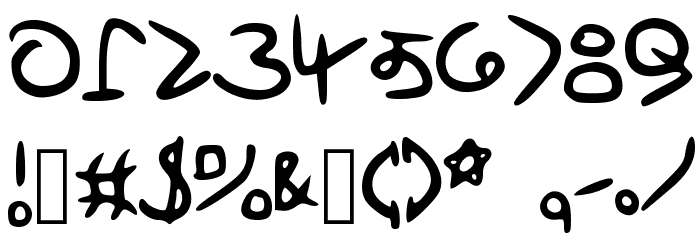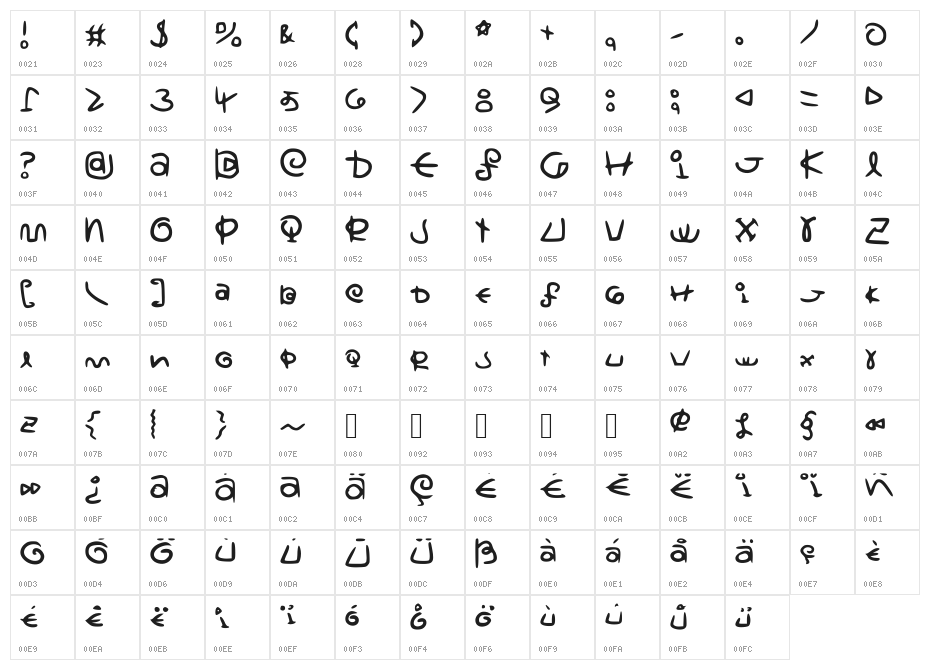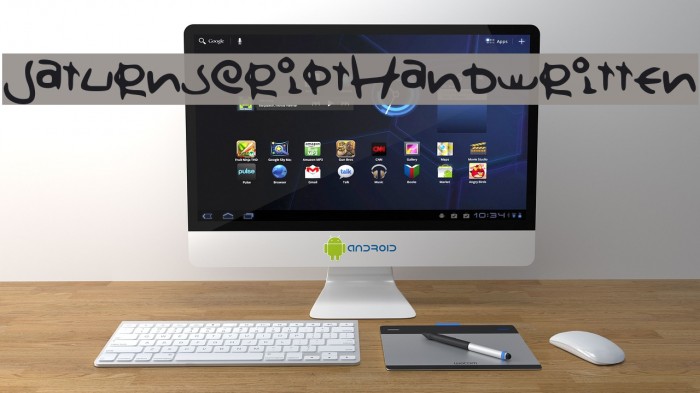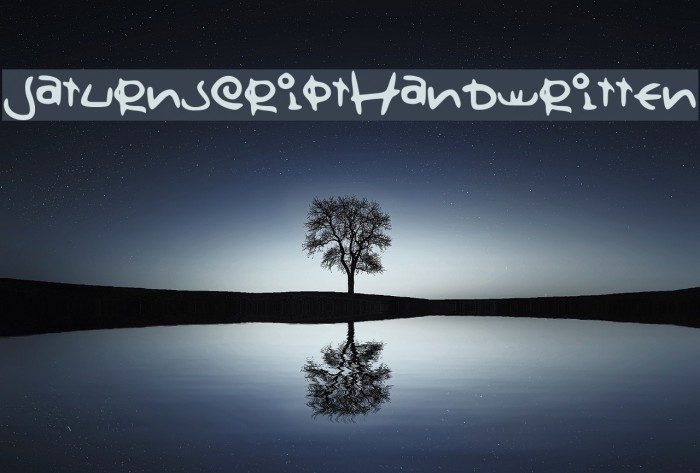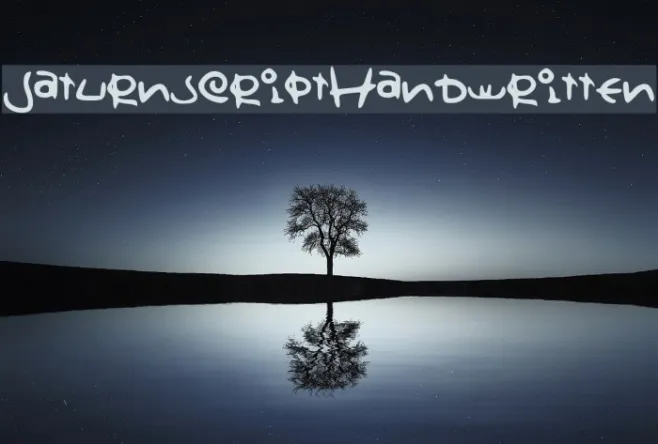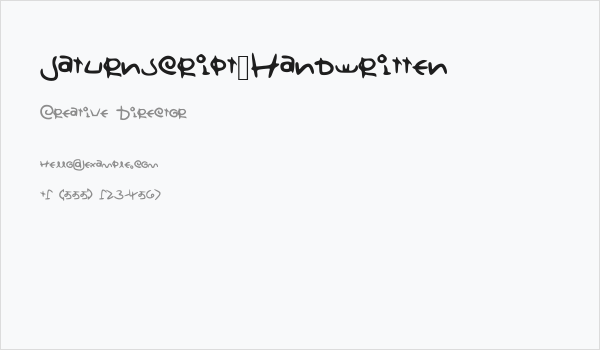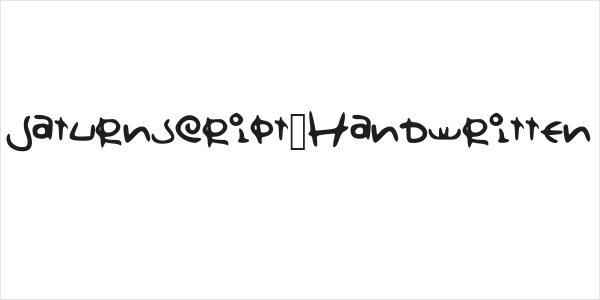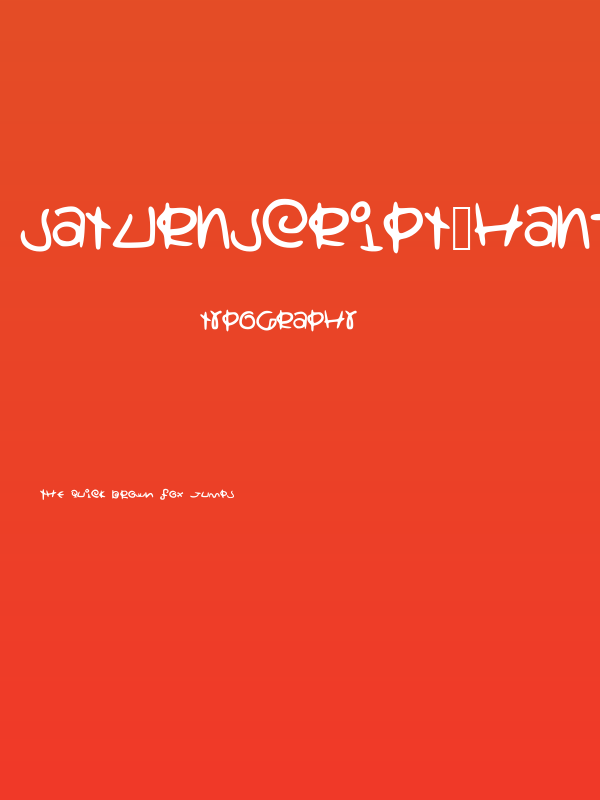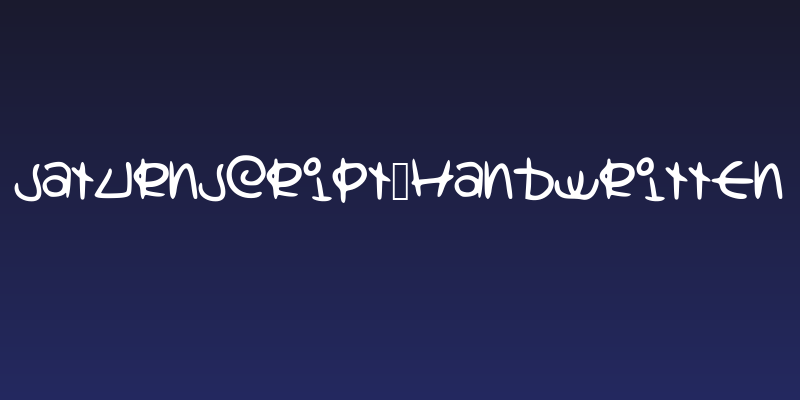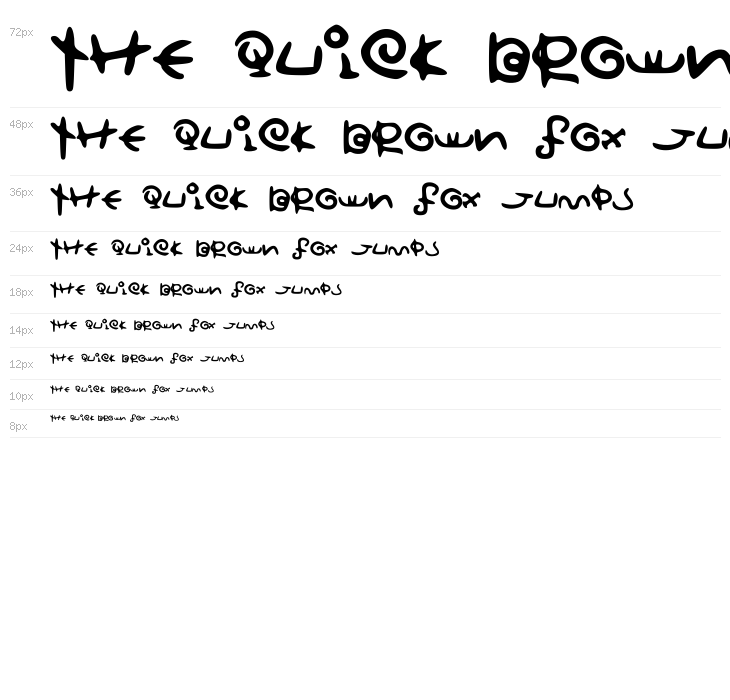
Saturnscript_Handwritten Font
Saturnscript_Handwritten Description
This font exudes a playful and whimsical handwritten style, characterized by its bold and rounded letterforms. Each character has a unique, almost doodle-like quality, with varying line thickness that adds to its charm. The uppercase and lowercase letters maintain a consistent flow, while the numbers and special characters are equally expressive, featuring creative twists and turns. The overall appearance is informal and artistic, making it suitable for projects that require a touch of creativity and fun.
| Proposed Projects | Ideal for children's books, creative posters, greeting cards, and playful branding. |